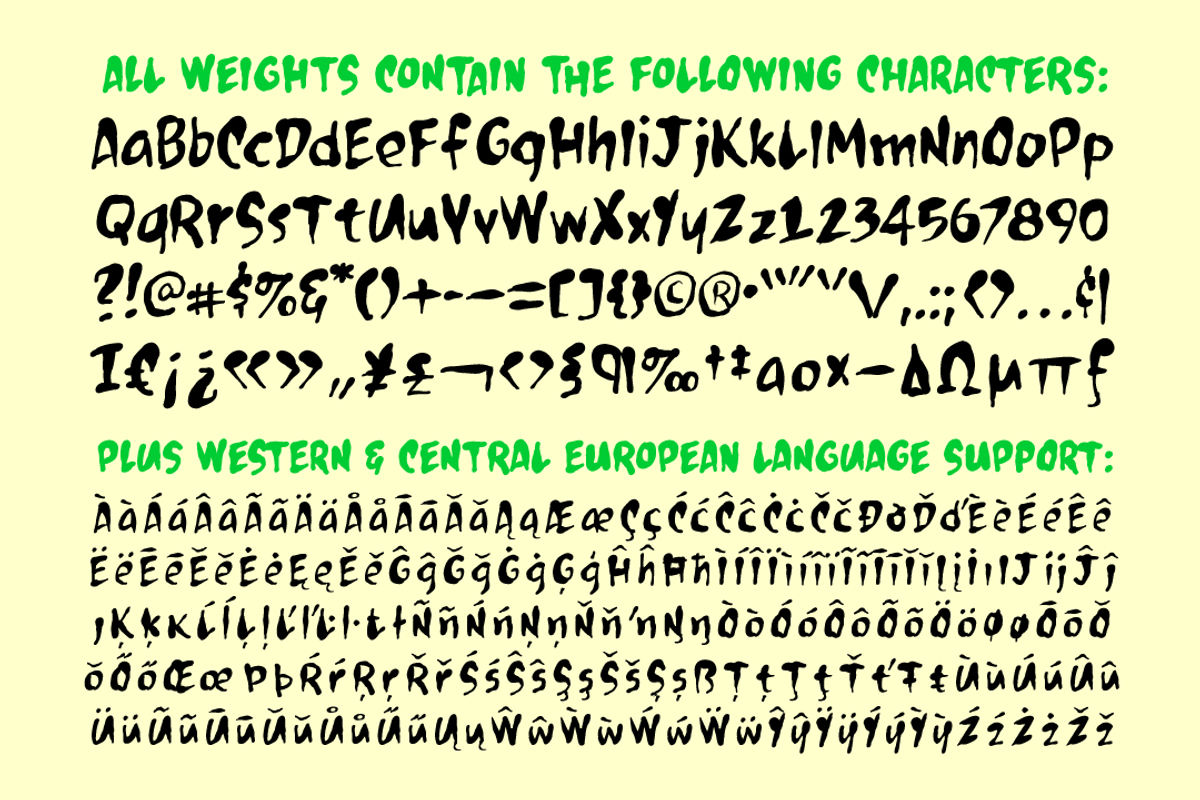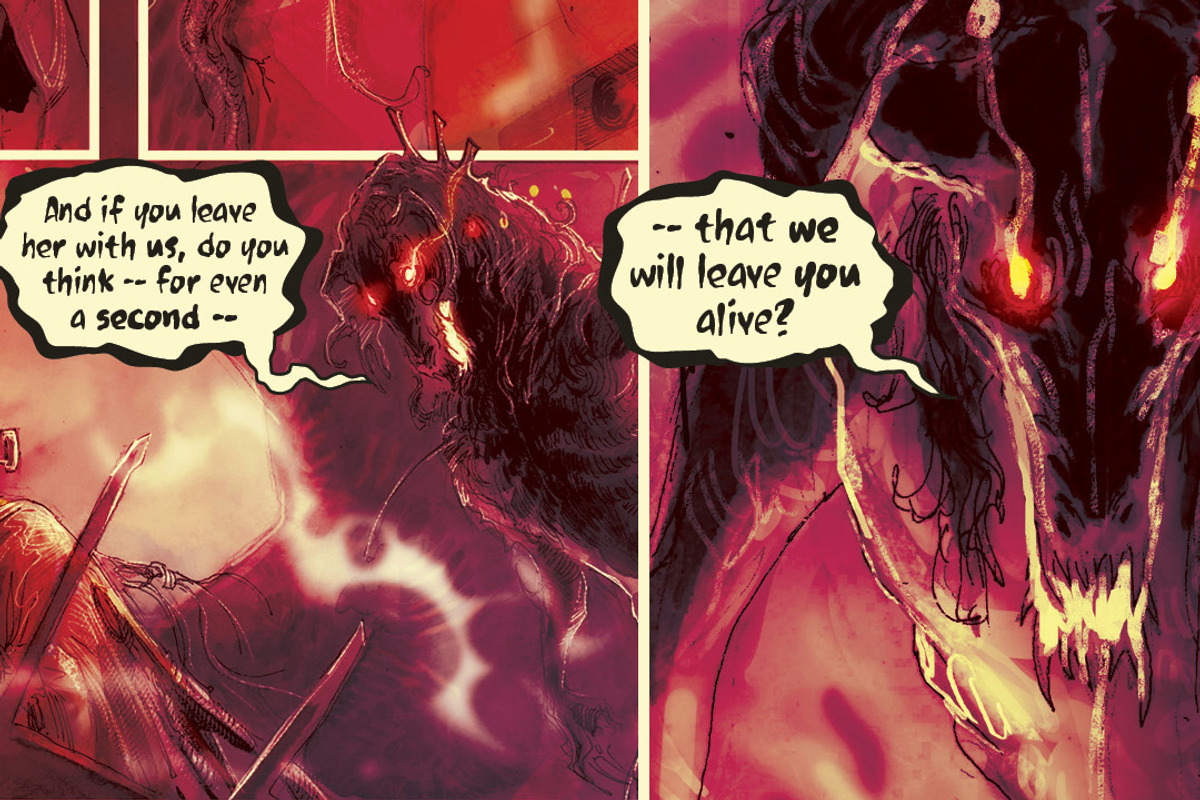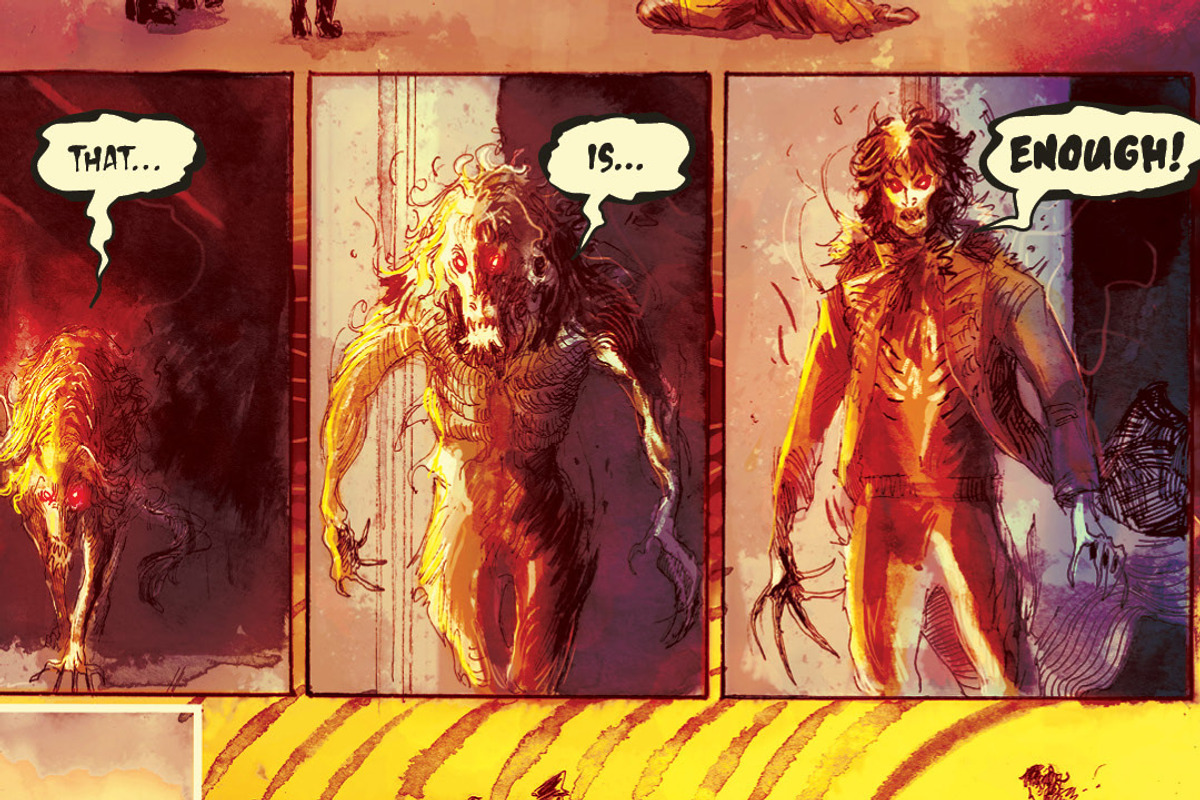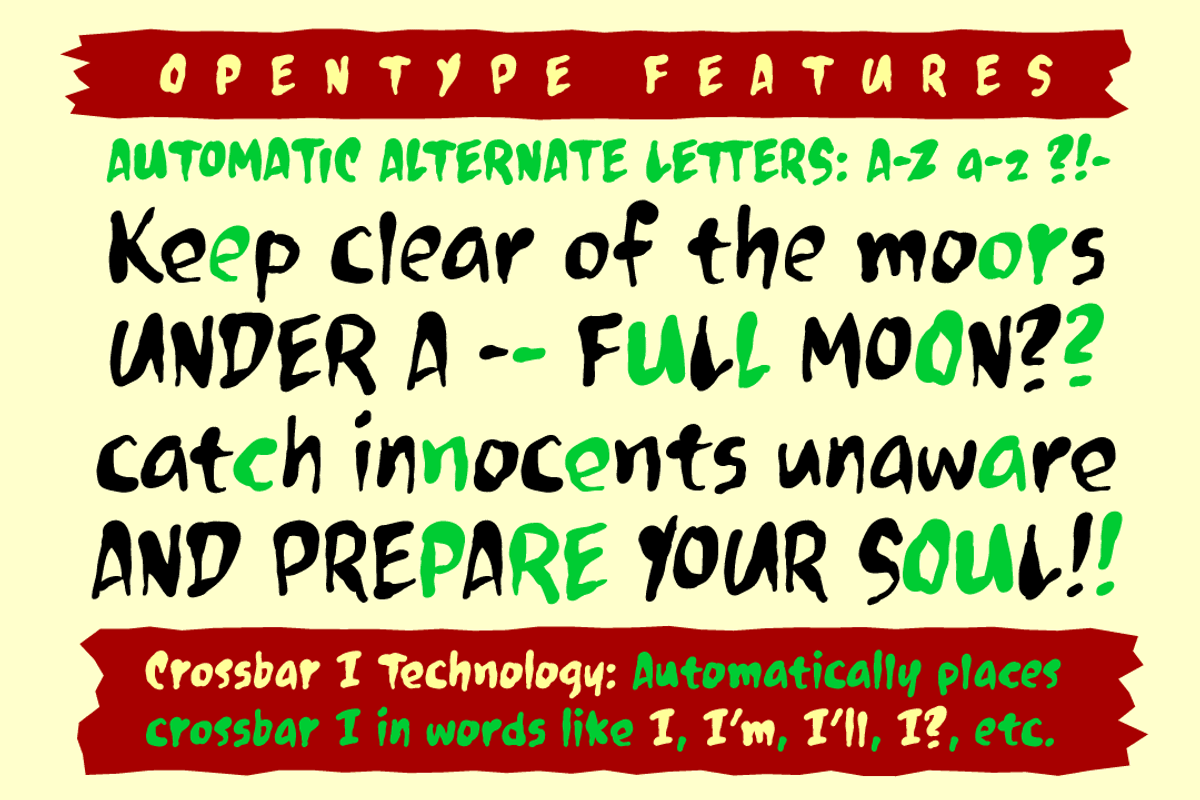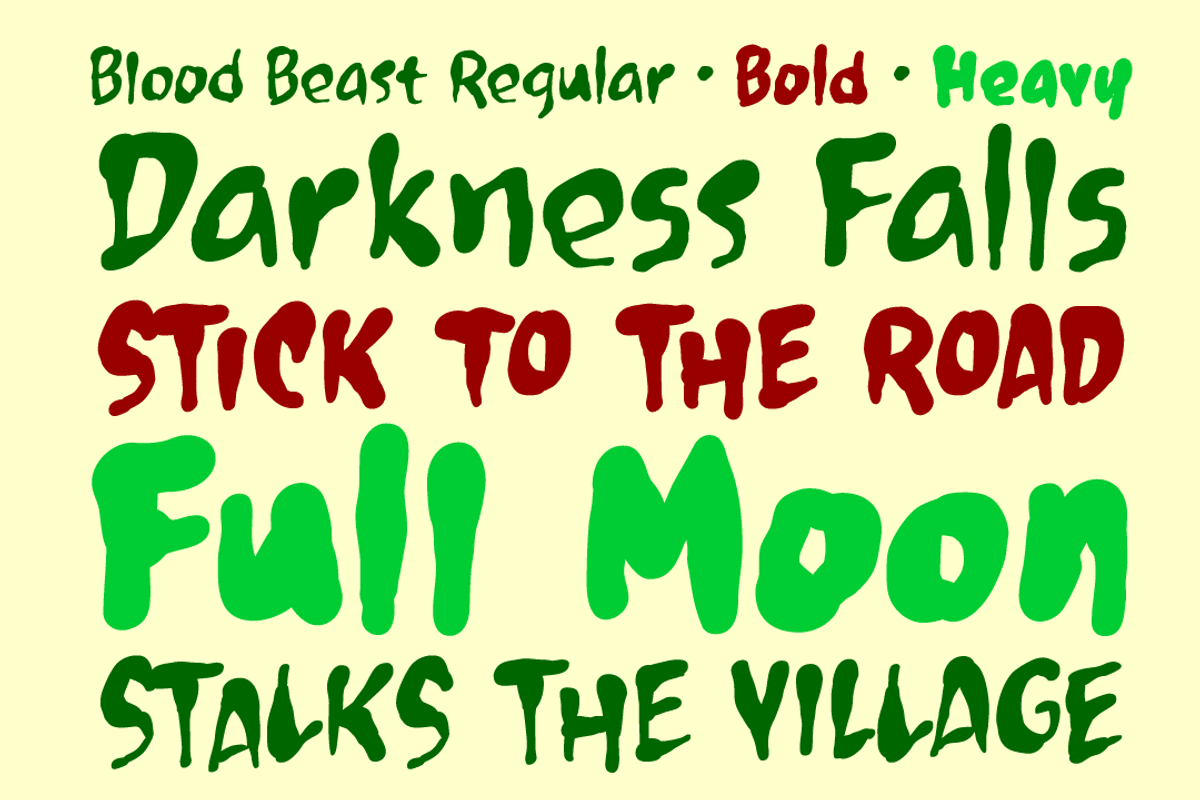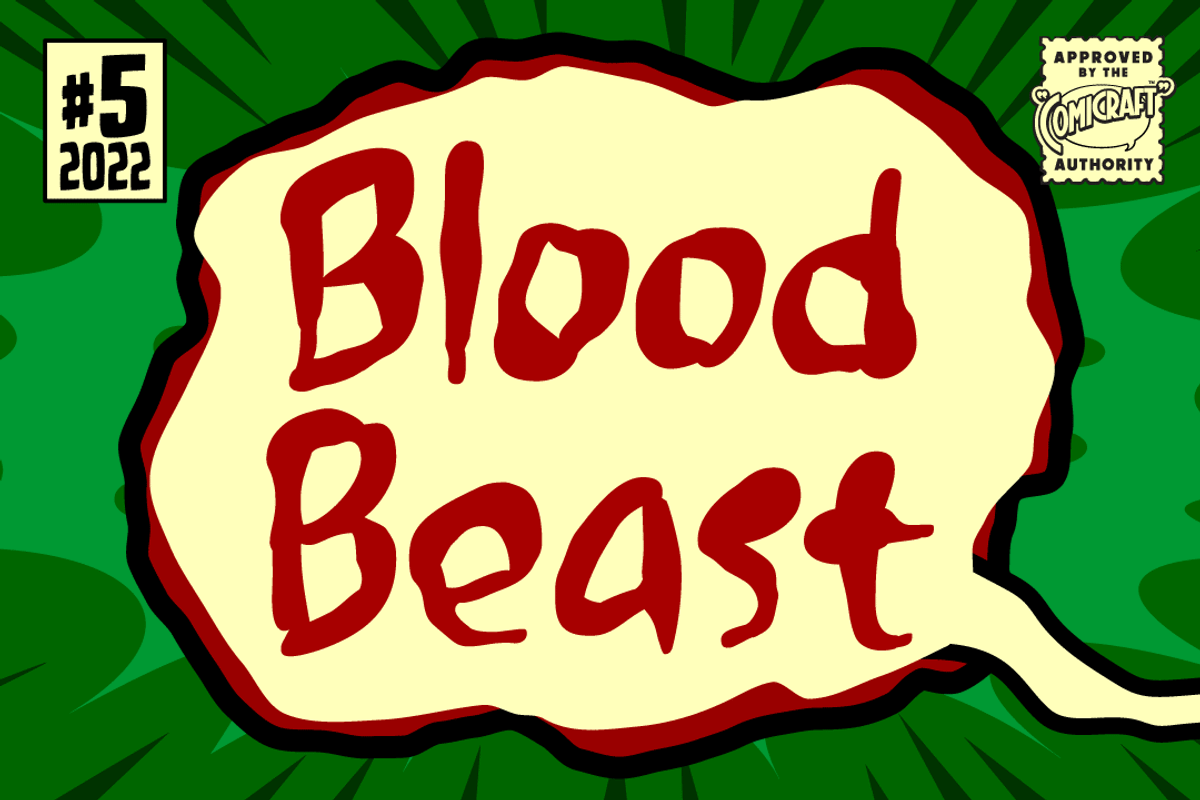
Blood Beast - a scratchy horror font
Darkness Falls… beware the Moon and stick to the road. Keep clear of the moors, for there you will only find a bloody, UNNATURAL death. Tonight, as every night there is a Full Moon, the Blood Beast stalks the village. It is ready to catch the unwary one, the show-off, the FOOL! It walks the Earth in limbo from one month to the next and only one who is loving in spirit can bring an end to its Carnivorous Lunar Activities!
Blood Beast arrives in three weights, Regular, Bold and Heavy, but we recommend you don’t tackle any of them unless you are brave of heart and prepared to save the soul of the poor victim who was left with the Mark of the Blood Beast!
- Three weights with alternate upper and lowercase characters
- Languages: Western & Central Europe
- Features: Automatic alternates & Crossbar I Technology™